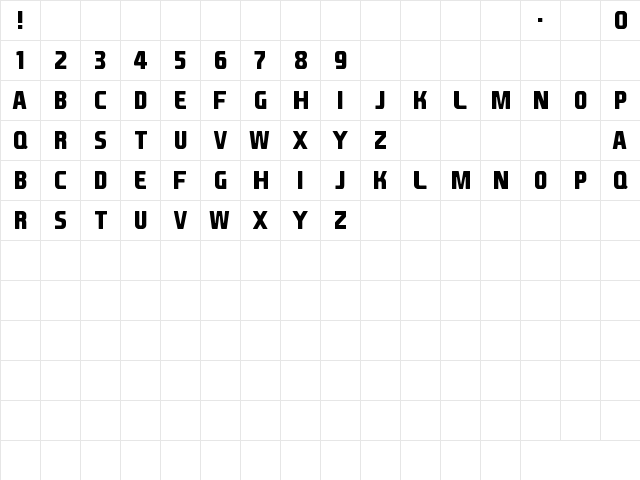
EA Font v1.5 by Ghettoshark Regular
Design Context for EA Font v1.5 by Ghettoshark Typeface
EA Font v1.5 by Ghettoshark takes a measured approach to typography — its balanced proportions and neutral character make it a reliable workhorse for both digital and print work.